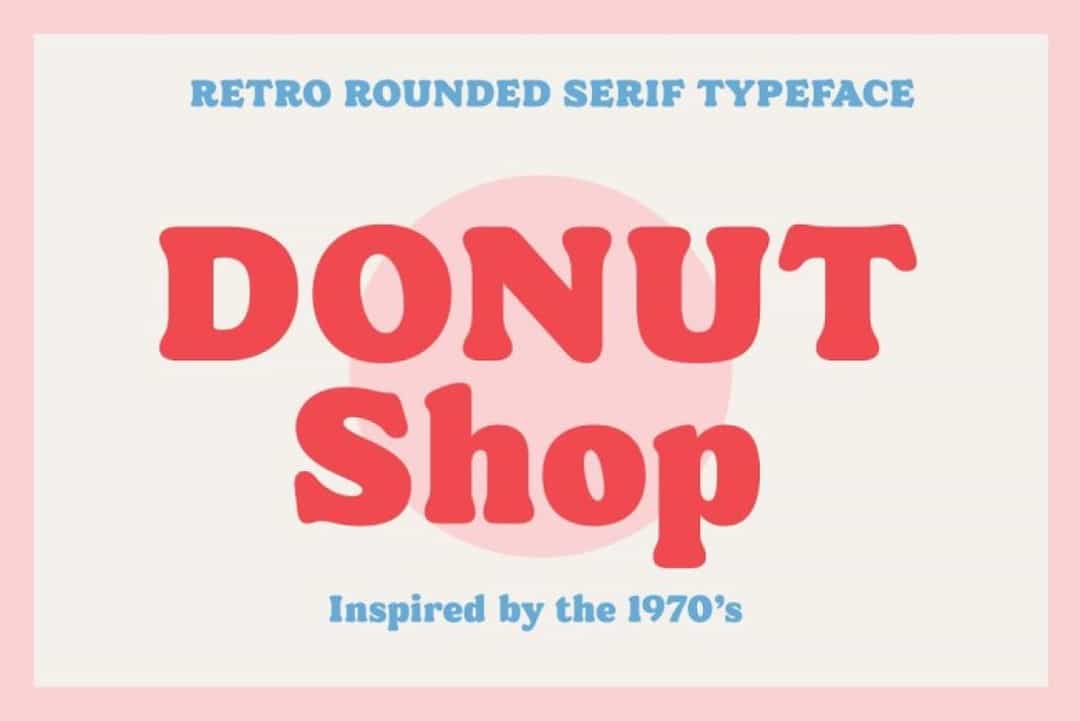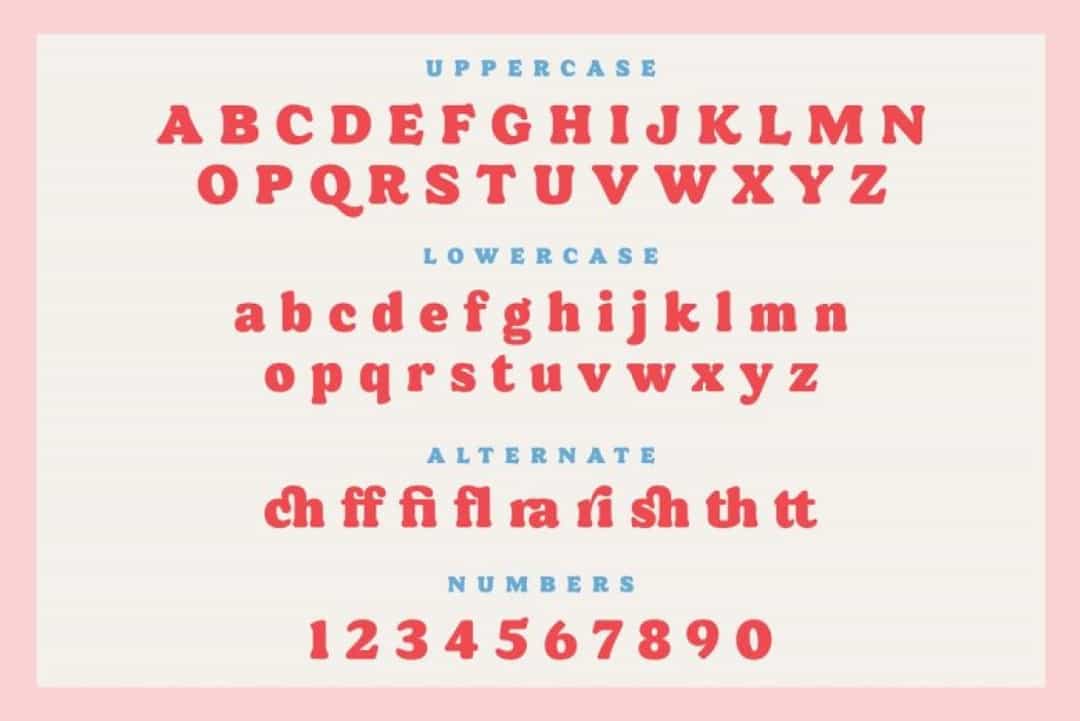
Donut Shop is an oversized retro and rounded serif font inspired by the relaxed 1970’s that features soft corners with multilingual support and various ligatures for your design needs. Perfect for large-scale displays as well as branding elements, packaging designs, and more!